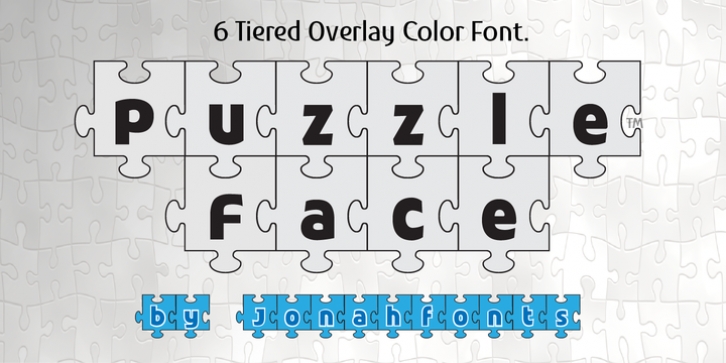
Puzzle Face is a novelty six-tiered overlay font with a range of possibilities. With the use of your graphic application* your artwork can have special color effects. Ideal for concepts involving problems such as solutions, mysteries and of course puzzles. Ideal for a range of logos, posters, headings and bookjackets using ALL or SOME of the six layers.